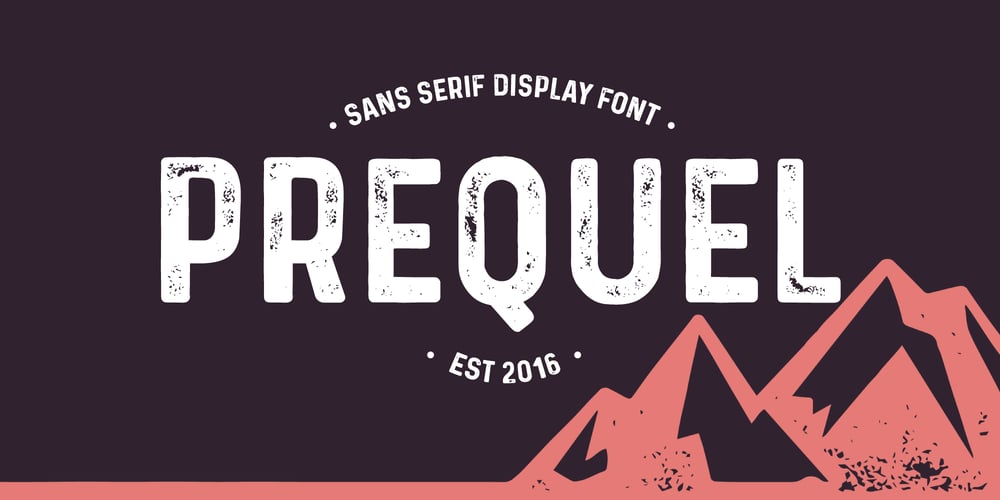
Prequel Font Family was designed by Philip Trautmann and published by Shaped Fonts. Prequel contains 7 styles and family package options. “Prequel,” is a contemporary take on its predecessor “Sequel.” It is designed with a strong sense of personality and a vintage touch, evident from its textured, distressed finish that gives it a worn, rugged look. The font exudes a retro vibe that would fit seamlessly into designs that aim to evoke nostalgia or a sense of timelessness.With a lower x-height compared to its forerunner, “Prequel” appears more compact and grounded. This characteristic could potentially offer a more robust and versatile reading experience, especially in dense blocks of text. The typeface includes a full set of 330 glyphs, ensuring a comprehensive range of characters that includes numbers, multiple symbols, and language support for an array of countries.”Prequel” also introduces eight distinctive ligatures, which can add an element of uniqueness to design projects. These ligatures—when letters are combined into a single character for stylistic effect—can help create eye-catching logos, attention-grabbing headlines, or unique brand names. To ignore the ligatures just type in lower case.Finally, the font comes with an italic version, expanding its versatility. The italic style can offer a more dynamic and expressive flair to the text, suitable for emphasizing key points or for use in more creative and informal contexts.